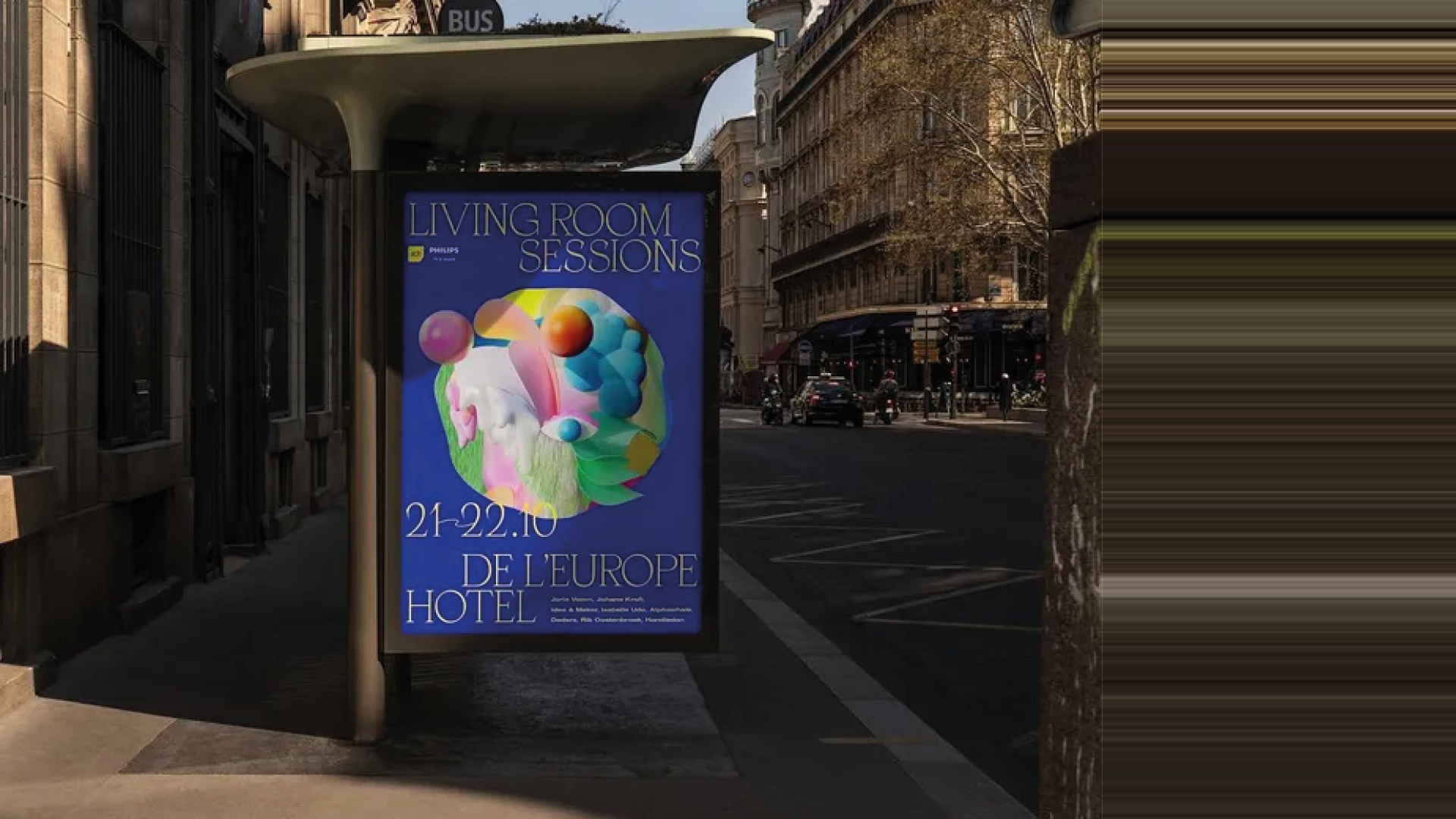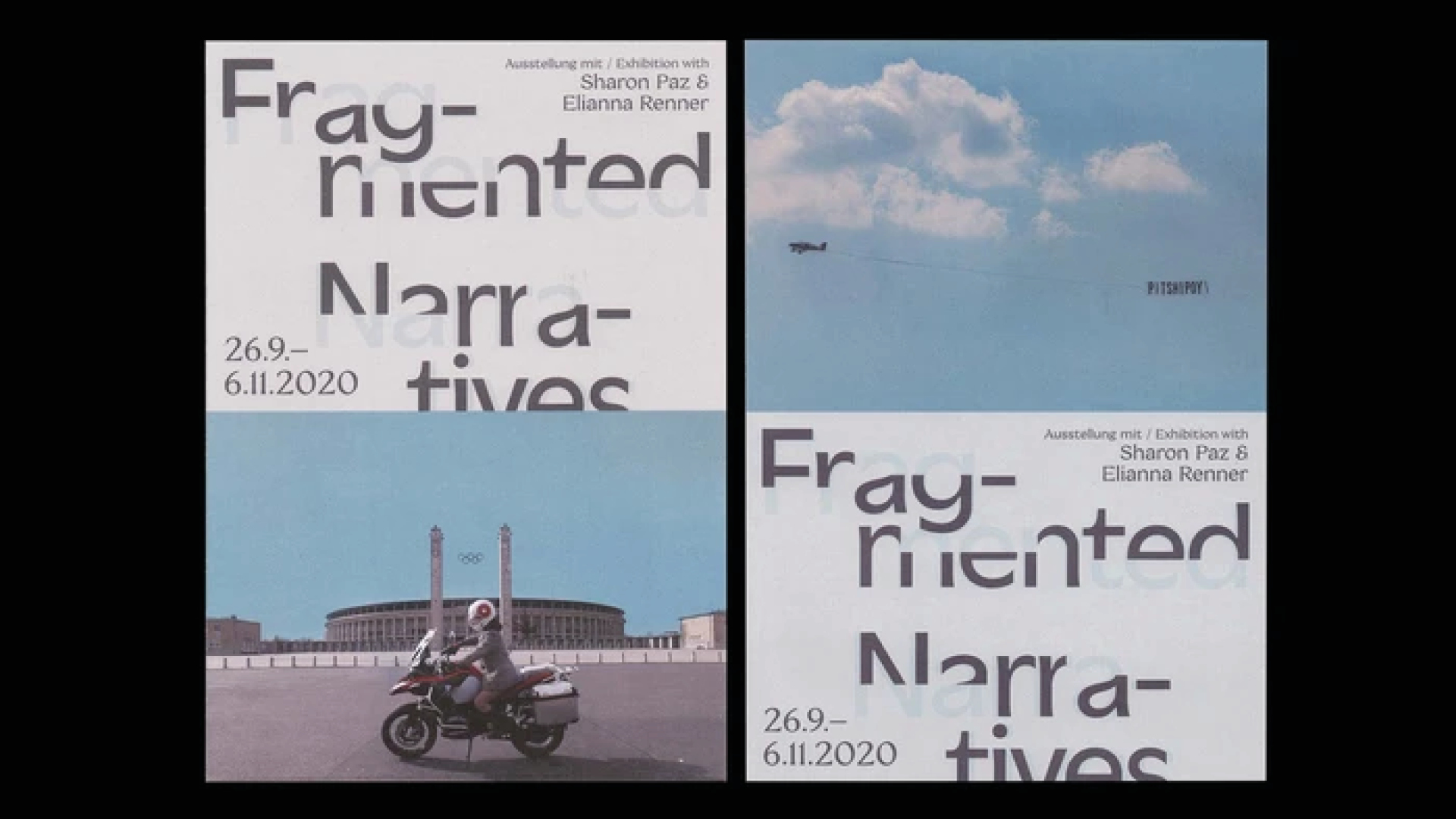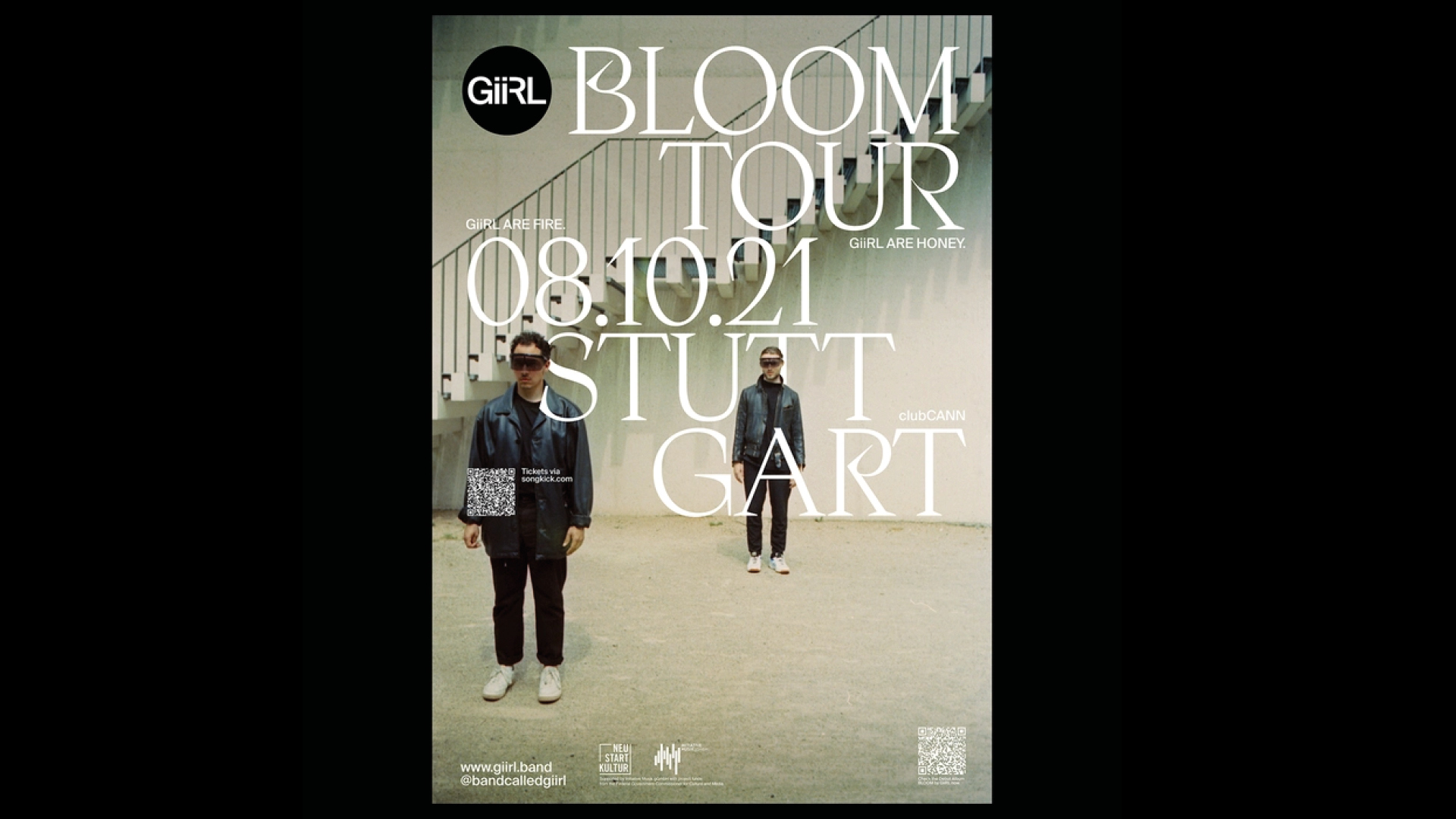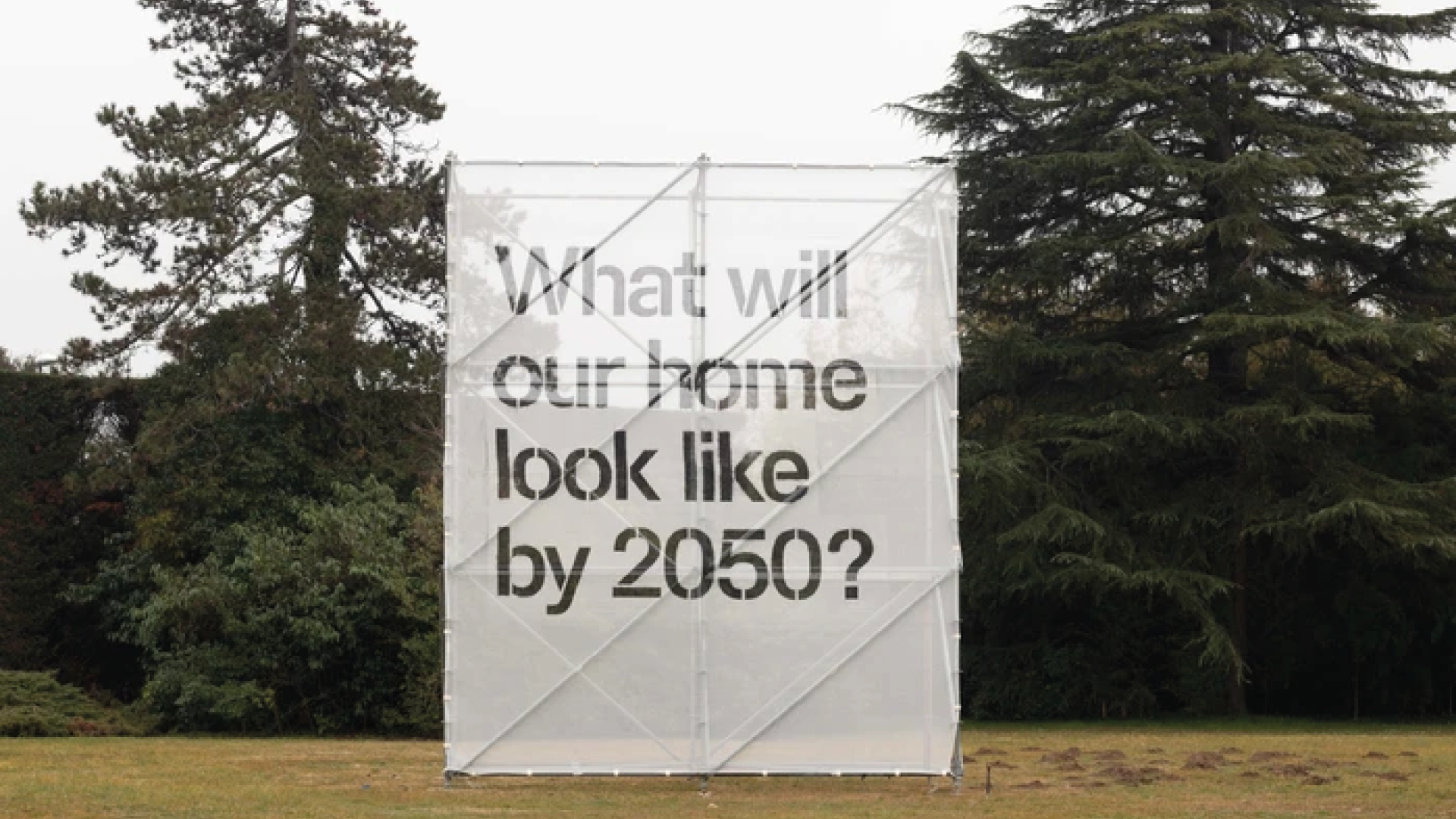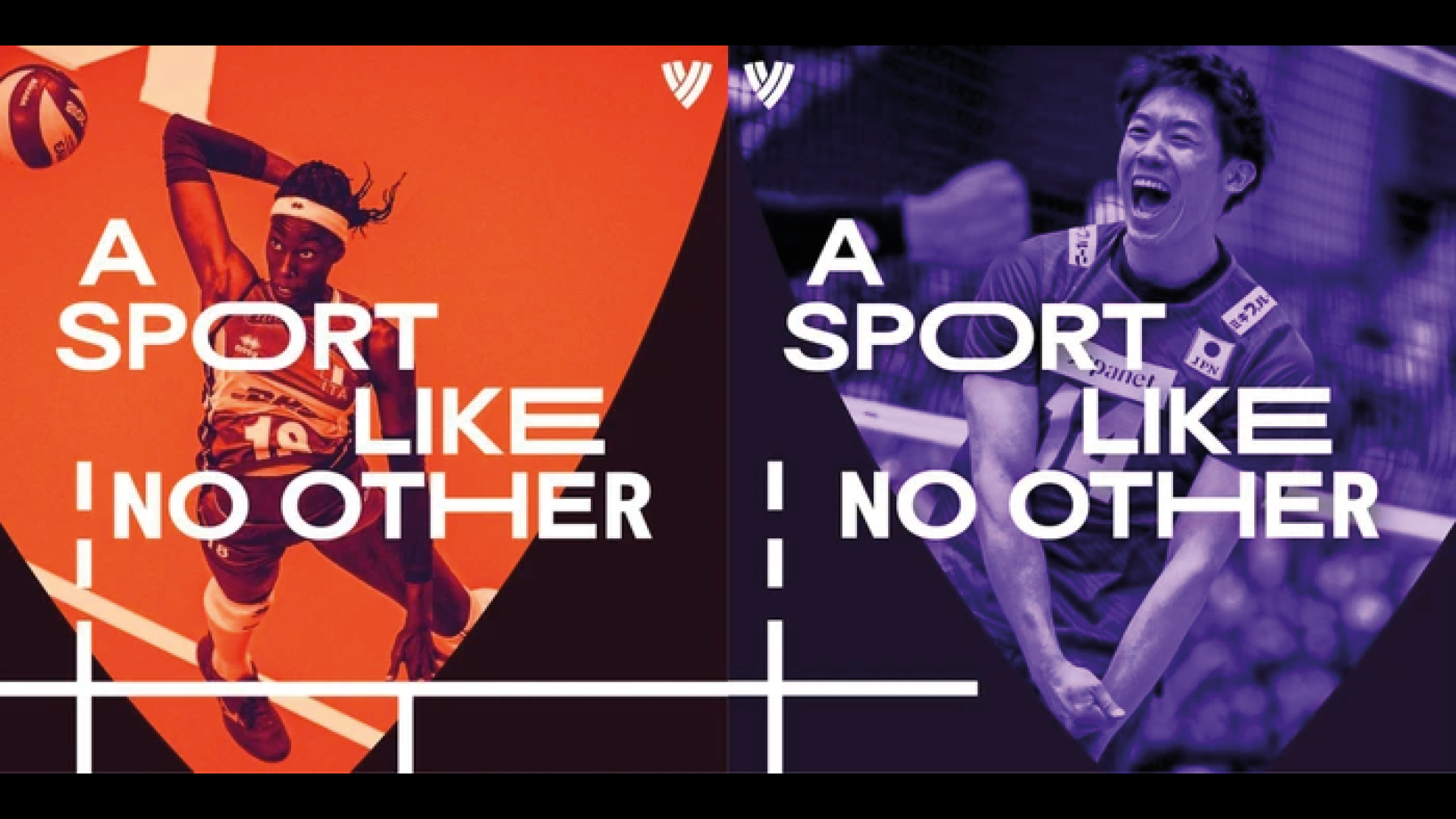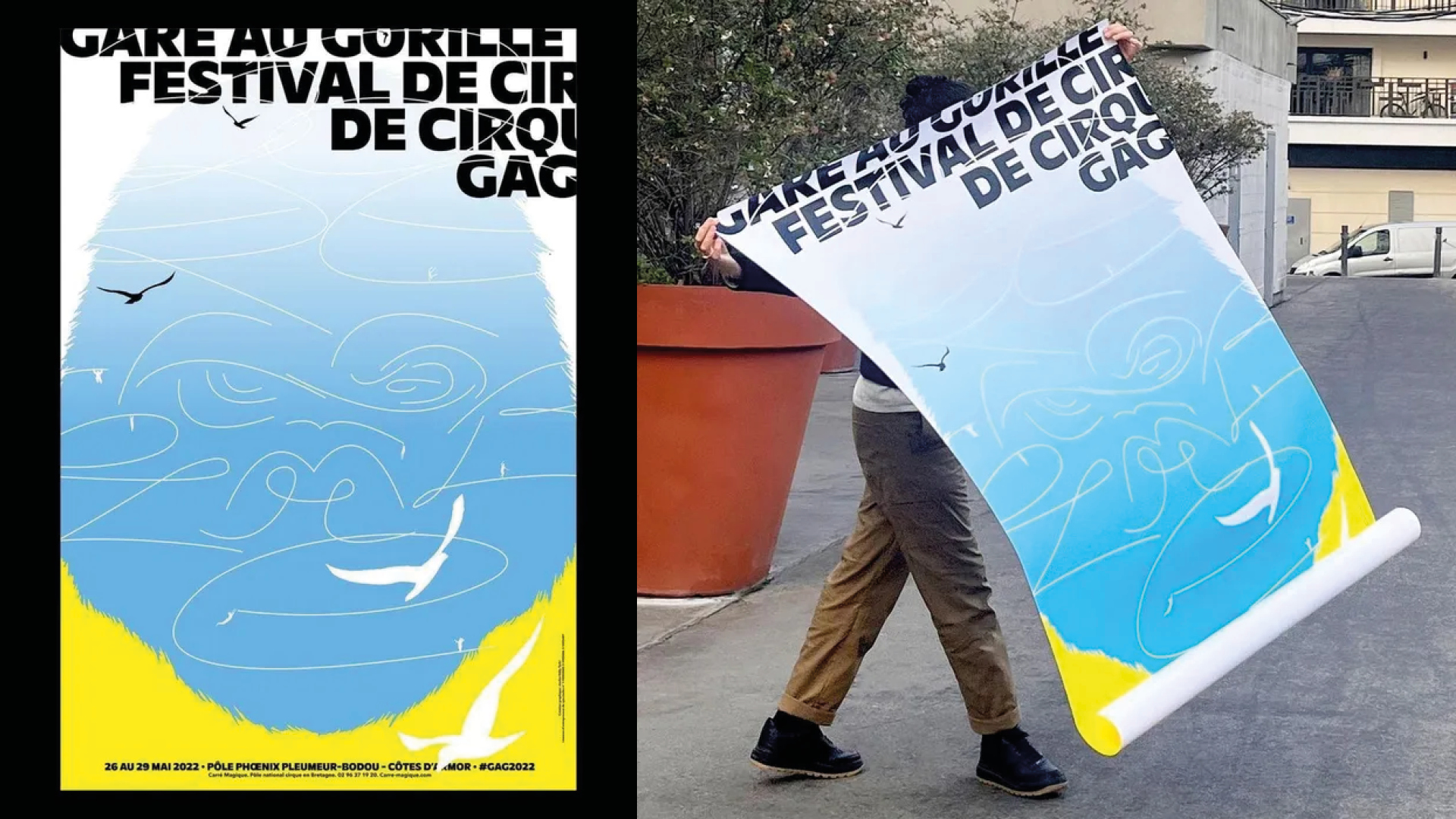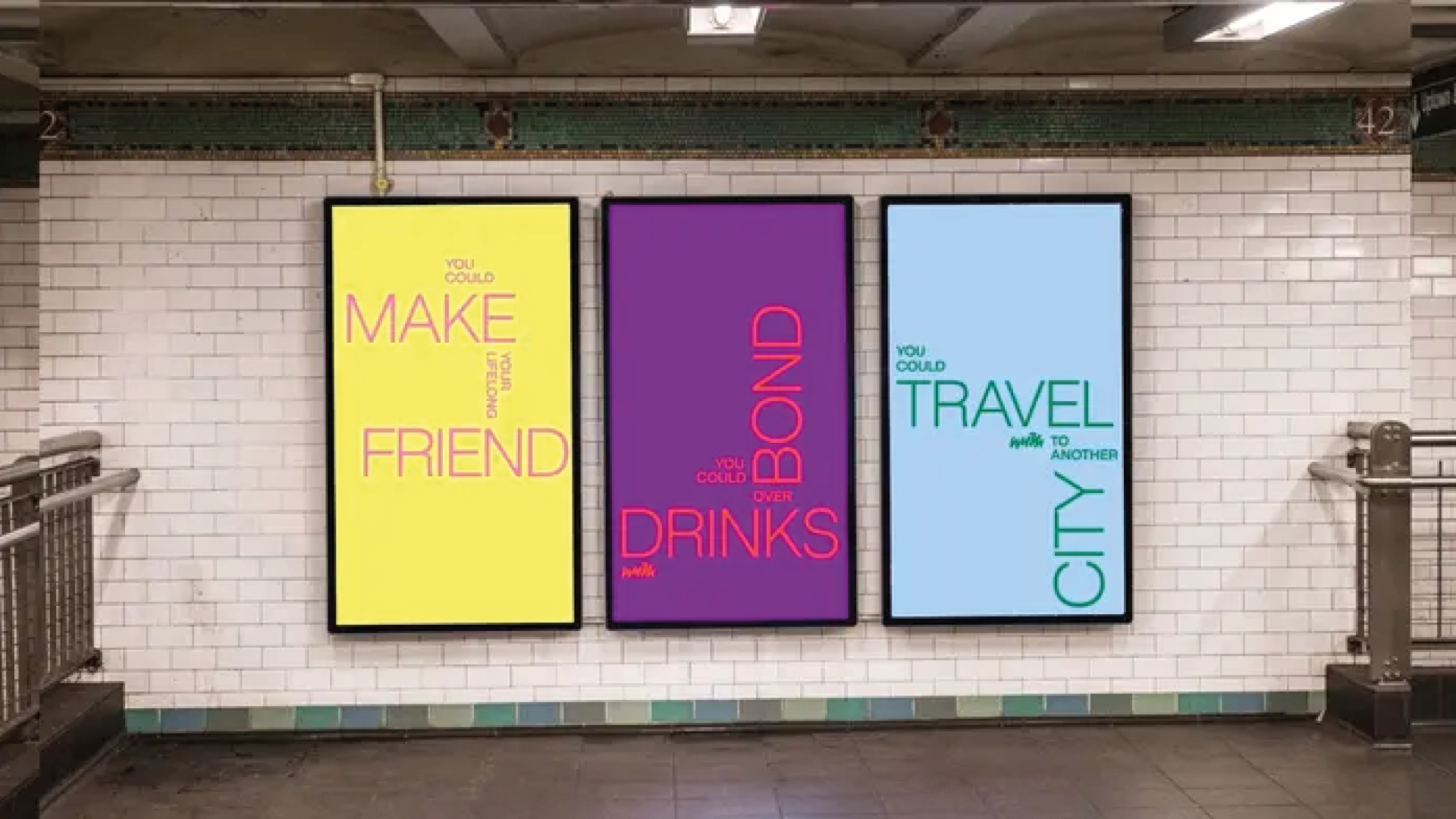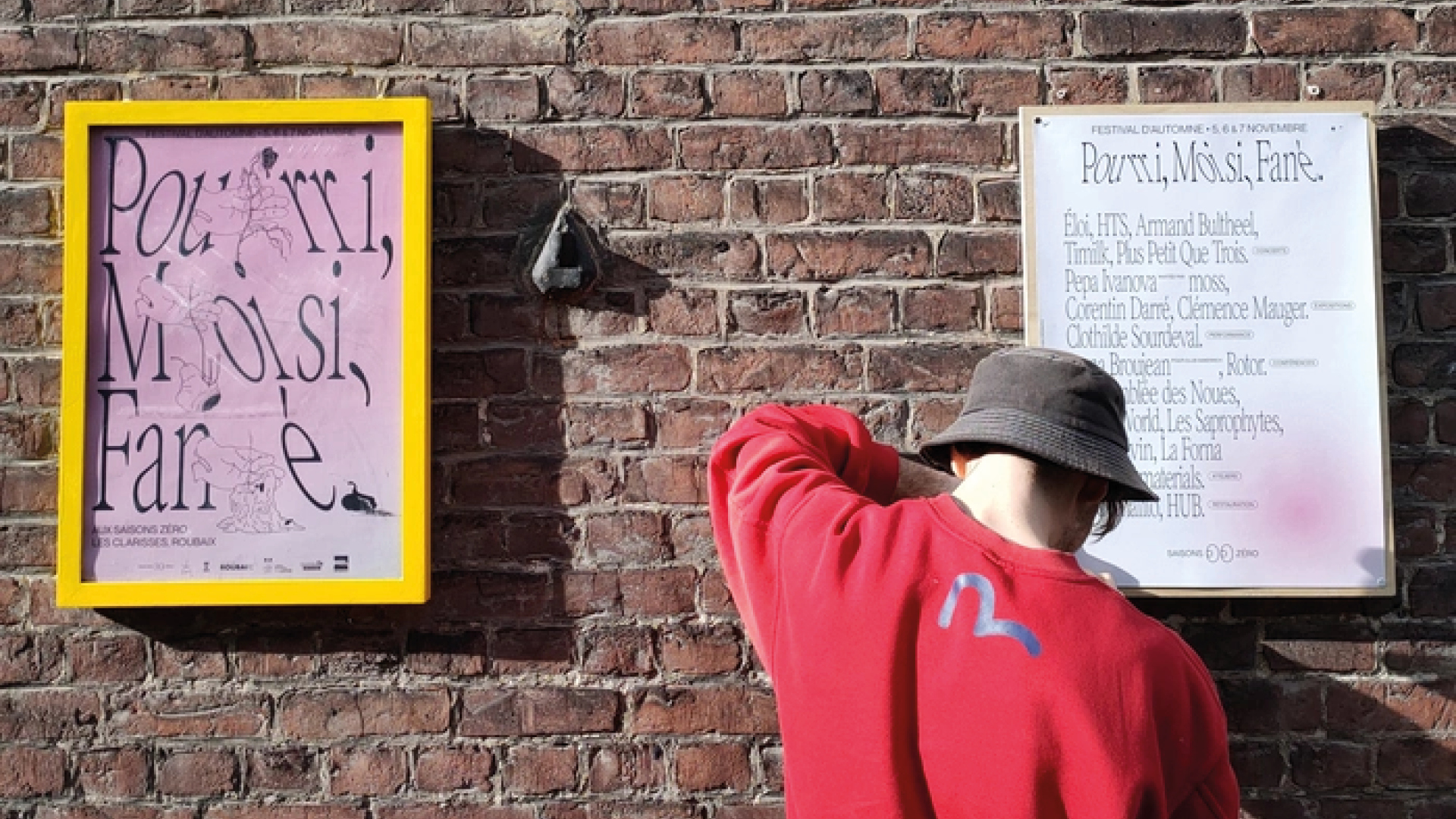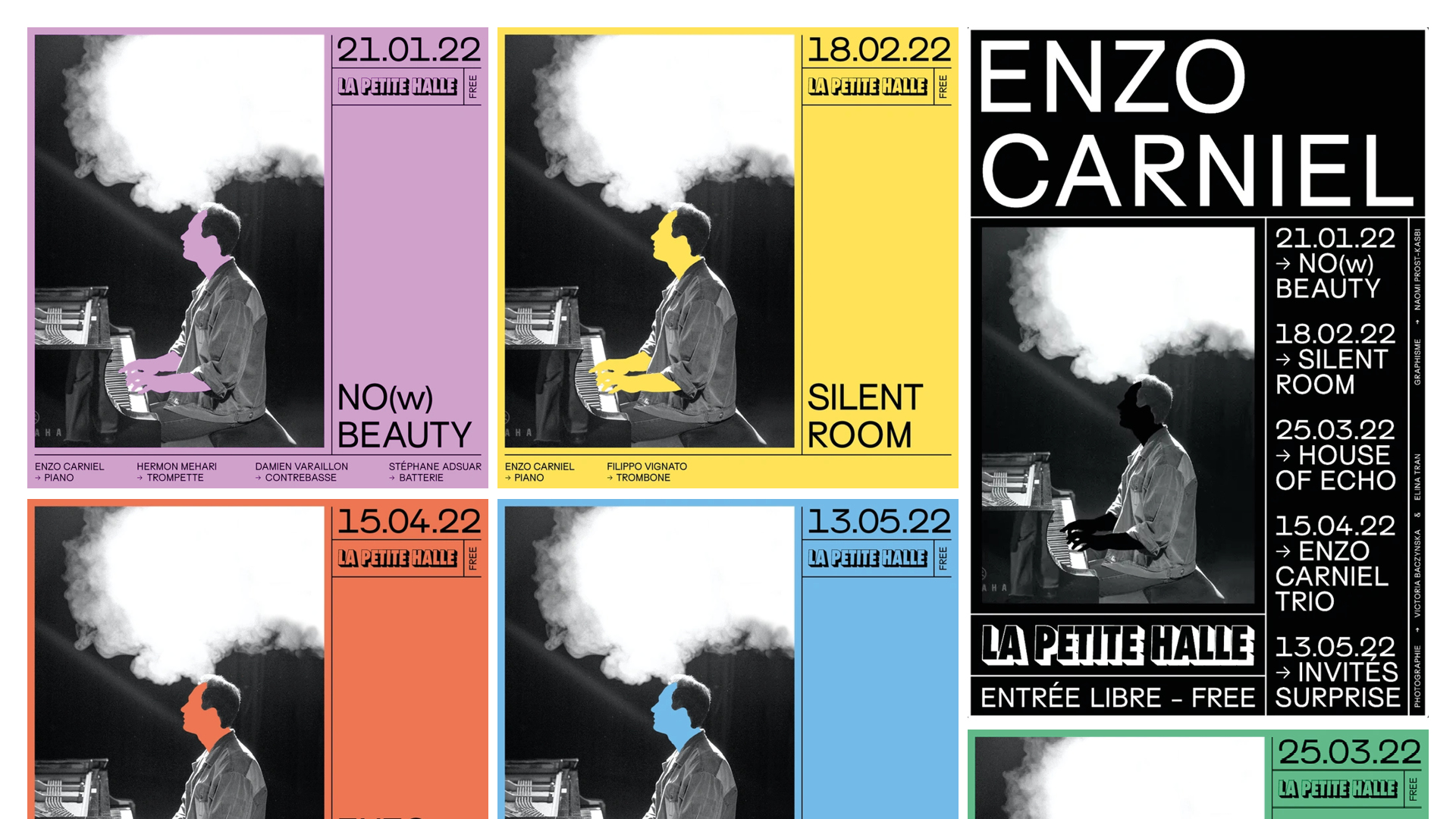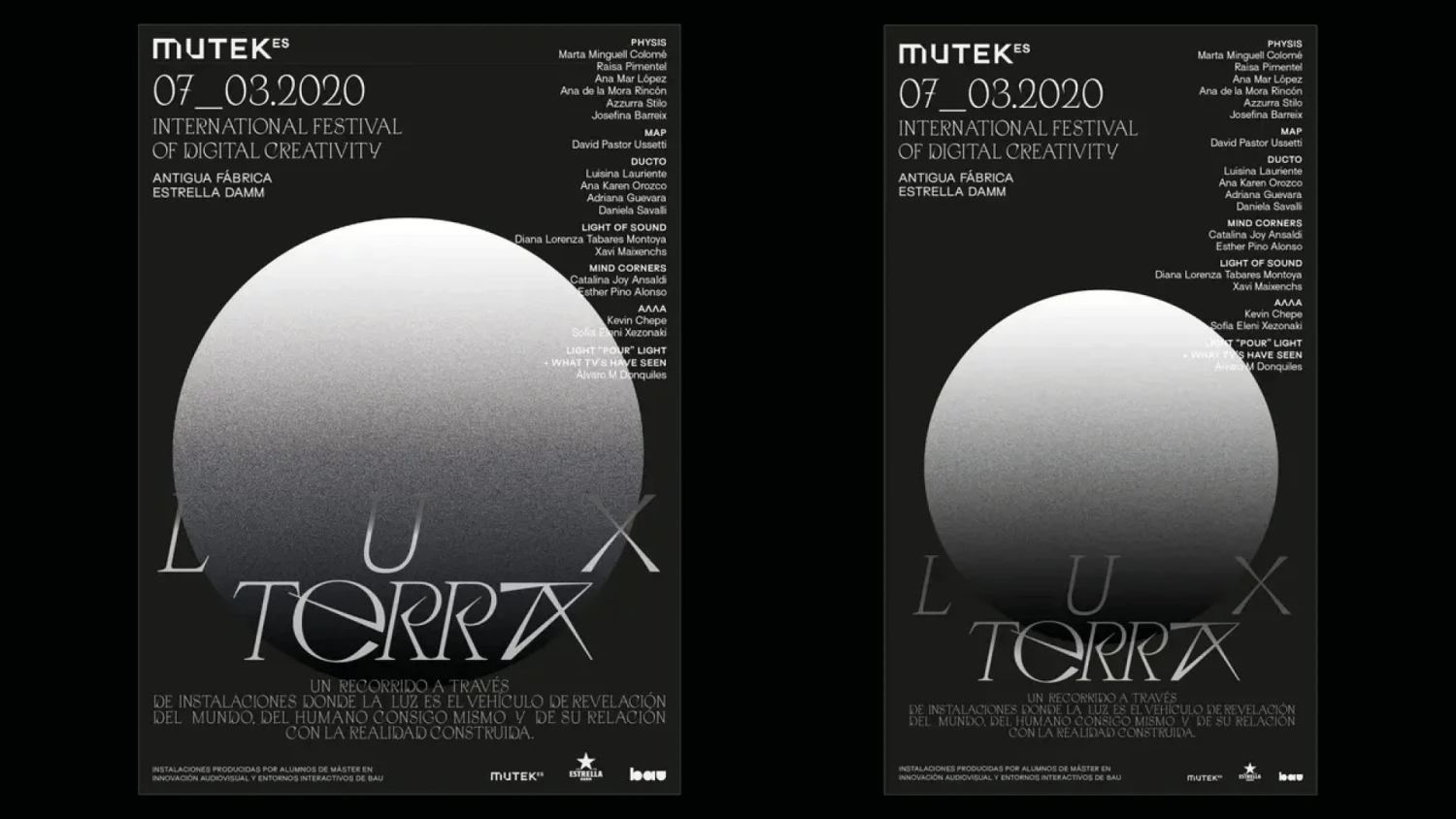
Fonts for Posters
Header poster by Alvaro Donquiles
After our article on typography for publishing, the poster appears as the other essential format of graphic design. But what about appropriate typographic choices? Although its contemporary use is mostly commercial and offers graphically poor examples, the poster remains a privileged medium, linked to great historical achievements. The graphic design student will probably want to create a portfolio where it will demonstrate his talent, his audacity and his creativity. In the poster, typography thus holds the main role.
Sometimes, a good poster is a balance between visual and typography. Apoc is used here with a lot of respect for the legibility of information.
The Living Room Sessions ft. Joris Voorn & Johana Kroft at Hotel De L’Europe
were organized by Philips Sound & TV and The Brand Father as part of the Amsterdam Dance Event. Graphic designer Caroline Busson and 3D visual artists Johana Kroft collaborated on the occasion to create this poster in printed and animated versions.
We find a refined used of Apoc alongside the animated 3D forms.
Impact
Success does not wait for the one who sweetly cajoles the onlookers. Success belongs to the one who conquers the public "Ă  la hussarde" or rather, pass me this soldierly term, who rapes it.
A poster needs to display informations, but font can translate the meaning behind the message.
Slussen Stencil doing perfectly the job.
Houses of the Future brings out a reflection on how will the world evolve in the near future and how will we live in it. The emptiness and uncertainty fuse into the hope of being able to reformulate our purpose to save the earth. The installation is part of Later Came Early exhibition at Fabrica research centre in Treviso, Italy. (Via LucĂ­a Peralta)
This is how the young Adolphe Mouron, known as Cassandre, described the strategy used to produce a good poster. The support must impose itself to the eye to be seen and understood quickly.
Moreover, among the typographic families, the variations of weight appeared in parallel with the popularization of the commercial poster in the early nineteenth century: the Didot of the early 1800s flourished on the walls of Paris with as much force as they were rich in weights but also extended version, called Normande (the Norman butter being probably responsible for this weight gain). Bold and Black are thus declined in games of width from the Condensed, Compressed to the Ultra Extended, demonstrating that the text, even distorted, must invade the entire surface of the poster.
Impact, keeping the idea of a slap in the face of the passer-by: the typography is striking by its strength or its obviousness. In this perspective, sans serif typefaces are the best actors, capable of flexibility and strength of play: Arges (48 styles), Osmose (10 styles), Mack (12 styles), Massilia (14 styles), Rules (12 styles), Area (88 styles), Slussen (104 styles with the Stencil and Mono), Surt (60 styles), Digital Sans (14 styles)
To catch the eye, typography is treated as an image and not as information: it is seen first, then read.
If the poster is solely typographic, beyond a certain volume of text, it must be prioritized by variations of size, weight or italics. It is better to highlight a few essential words than to want to say everything and end up saying nothing.In this case, you have two options:
1. Choose a typeface that has a few variants that allow for these nuances of style.
2. Compose a selection of 3 different typefaces that can complement each other. 3 only because more would be too much.
Circus festival Gare au Gorille (“Beware of the Gorilla”) takes place during the summer in Bretagne, France. Paris-based graphic designer Eddy Terki designed the poster and programme for the 2022 edition, using the Black weight of Massilia (Blaze Type). The poster was animated for the festival teaser, made by Julie Grossetête.In the program folder, the Light weight of Massilia is paired with Monotype Grotesque.
For this brand new identity, Blaze Type worked on a variation based on the design structure of the Surt font family. When it came to applications, they needed something that could show great balance and rhythm while allowing a super wide range of possible width variation in the font, in order to have a strong and playful tool to design with.
Legibility
But impact is not a simple effect to produce and needs to be well received by the passerby or it will be rejected. Therefore, legibility is the least of the courtesies to get the slap across. It would indeed be counterproductive to use black and extended typography without ensuring its legibility.
Texts composed in overly compressed or extended typography, especially on too small a size, can be seen as a jumble of chaotic shapes.
However, there is no need to select commercial typefaces reserved for publishing: legibility is sometimes a question of microtypography and good calibration of your typesettings. Be careful to keep the line spacing and kerning, do not abuse the distortion of the text, except if it becomes an image of letters to serve your idea.
Illustration made by Pia-Mélissa Laroche.
Legibility can be fragmented in order to gain some attention. Anyway, the whole result is still quite easy to read after few efforts.
For the posters and exhibition publications, design studio Operative Space made a brillant and eclectic use of the Massilia family alongside Coconat.